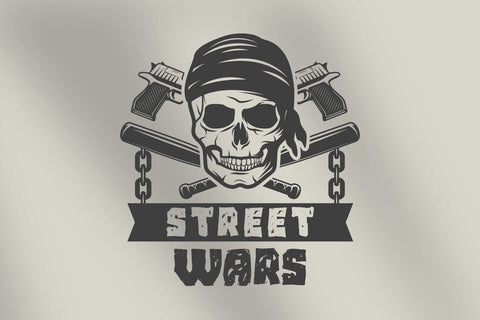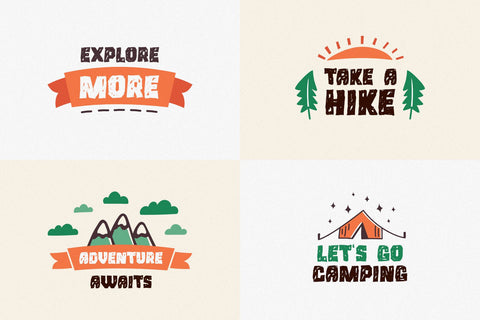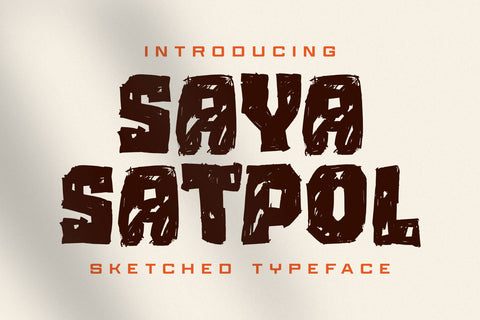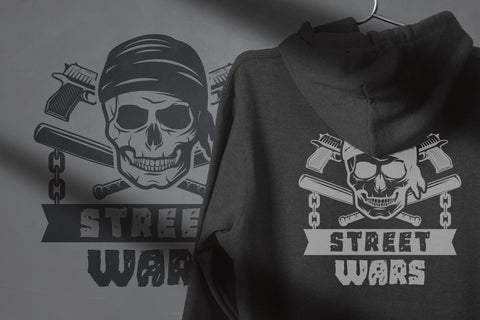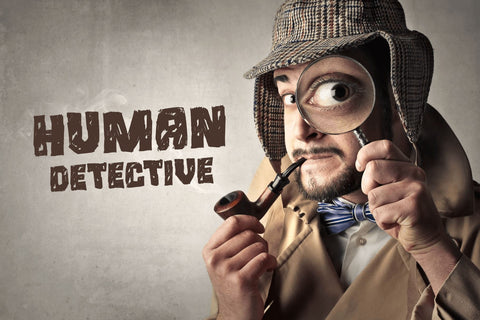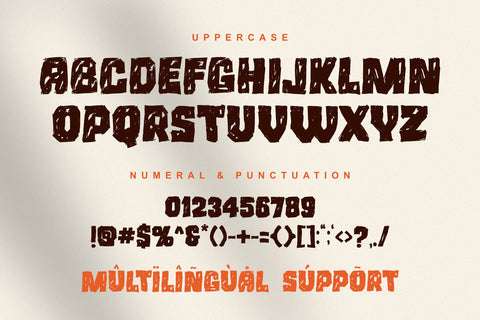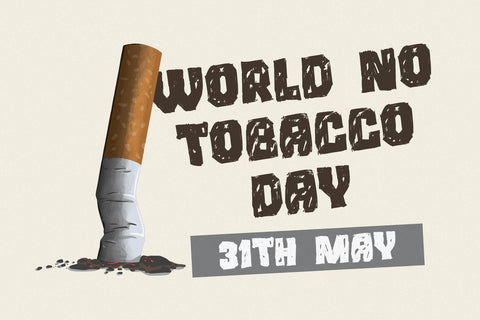
Saya Satpol - Sketched Typeface
Saya Satpol - Sketched Typeface made with a sketch-themed application that gives a relaxed and cool feel.
Saya Satpol is perfect for design, logo, social media, branding, advertising, product design, handwritten quotes, product packaging, headers, posters, merchandise, and other designs.
+ All Caps
+ Multilingual Accent